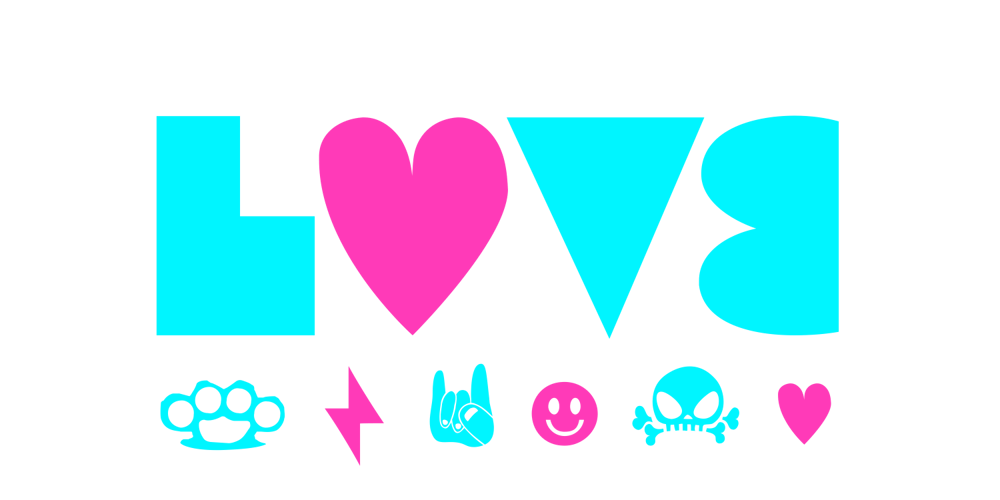
Fiasco
Fiasco font
Fiasco Font Family was designed by Frederico Antunes and published by ChibaChiba. Fiasco contains 1 styles and family package options. Extremely influenced by the new rave trend, Fiasco is a reflex of it’s excesses. Way too many elements, bright neon colors, and that not-knowing-when-to-stop sort of behavior. Acid House aesthetic remixed by the nu school DJs. Neon Flamboyant.